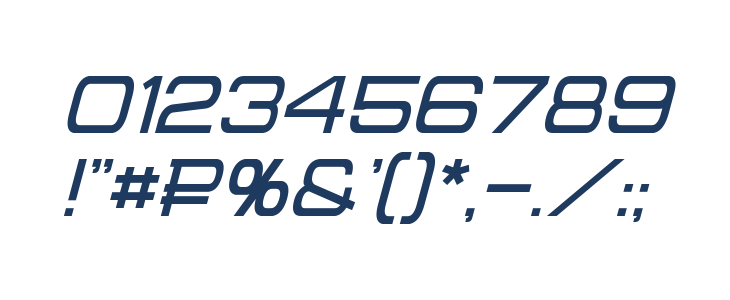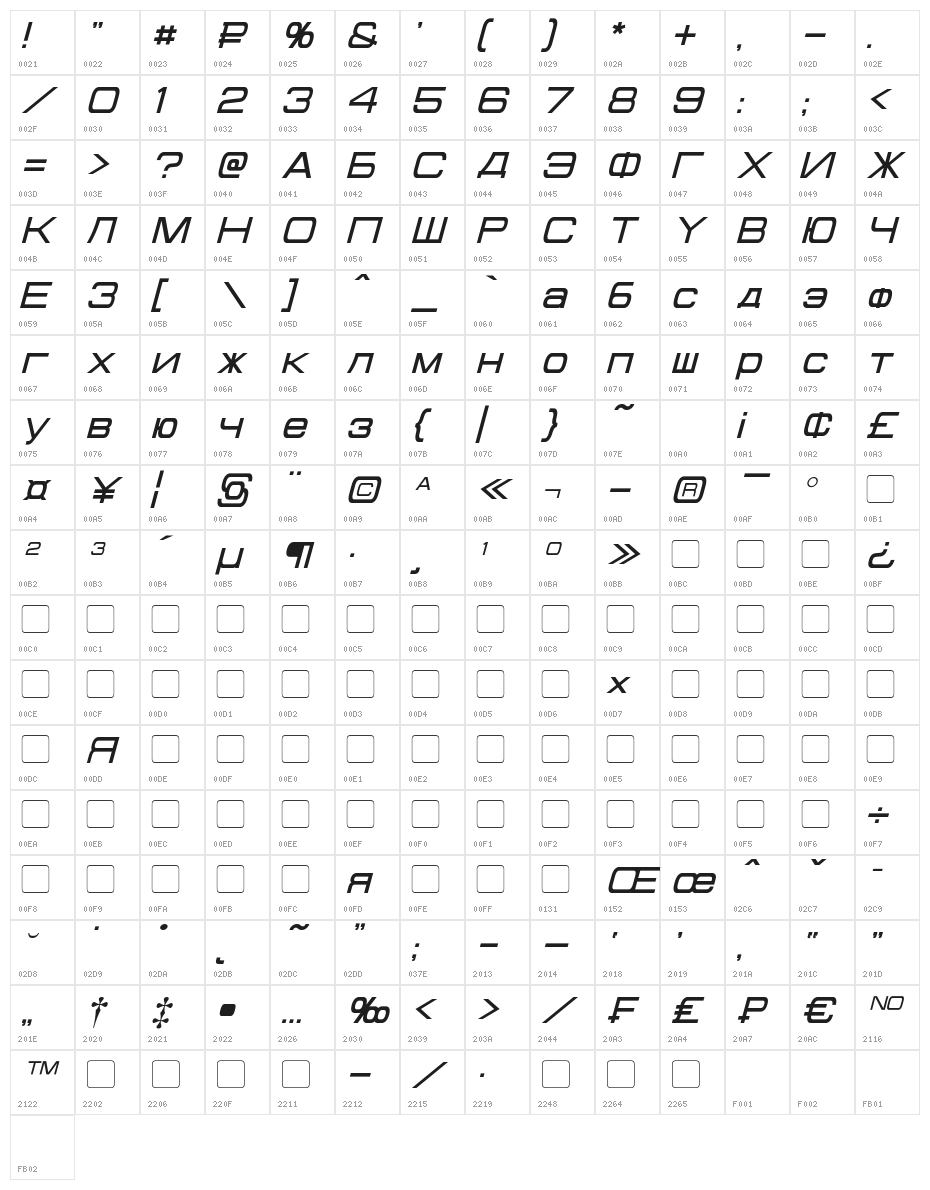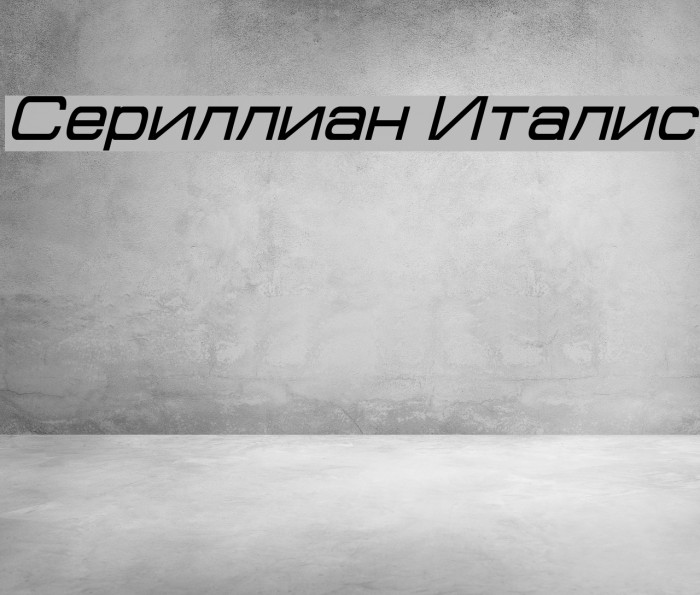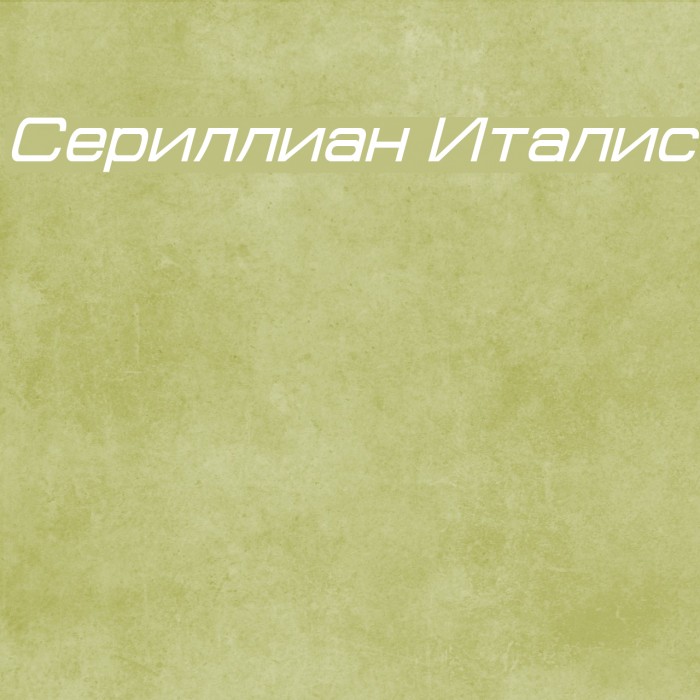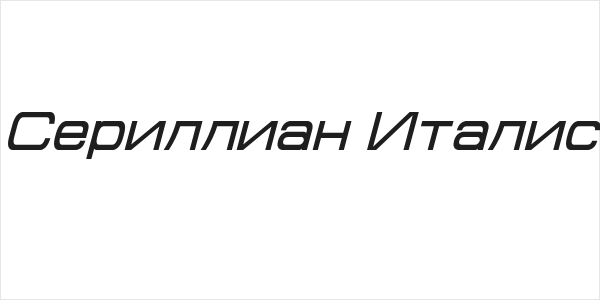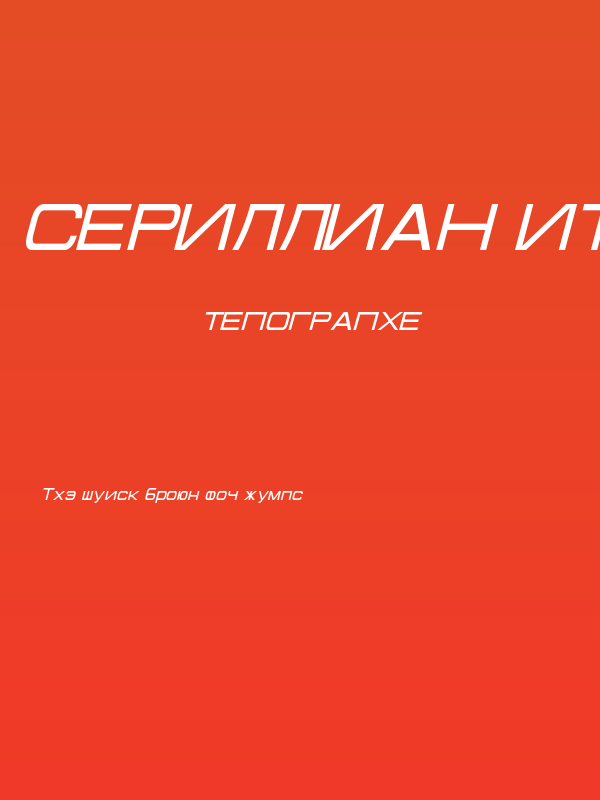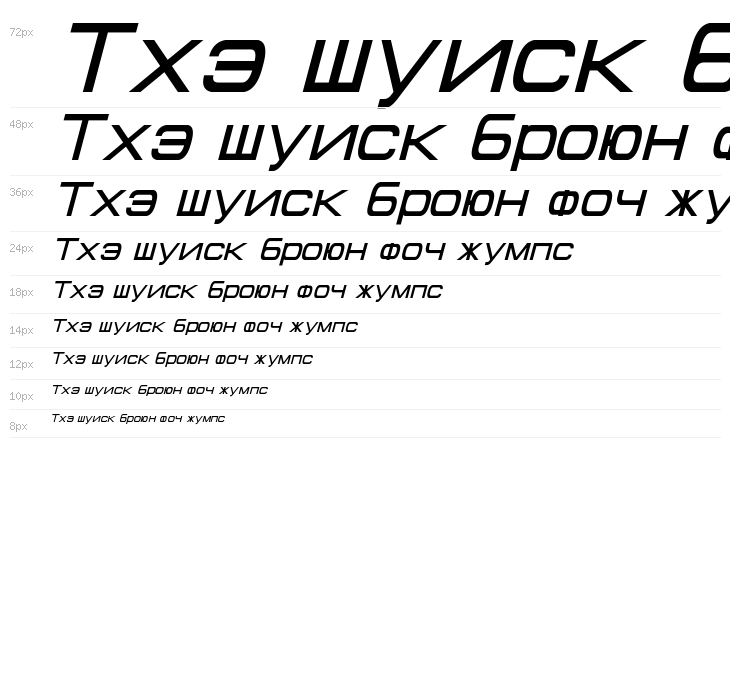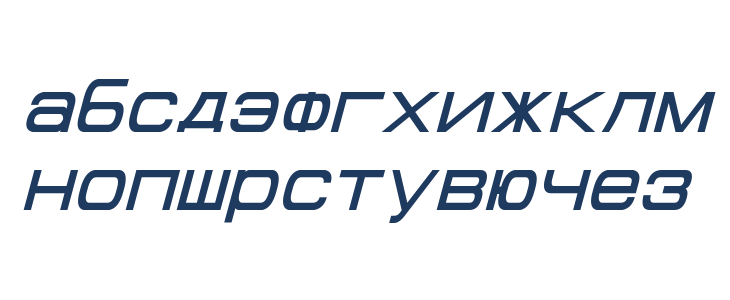
Cyrillian Italic Font
Cyrillian Italic Description
This font features a sleek, italicized design with a modern and dynamic appearance. The characters are slightly slanted, giving a sense of motion and elegance. The strokes are uniform with medium contrast, providing a clean and professional look. The Cyrillic alphabet is prominently featured, making it suitable for languages using this script. The numbers and special characters maintain the same italic style, ensuring consistency across all text elements. The overall design is contemporary, making it ideal for projects that require a stylish yet readable typeface.
| Use Case | Headlines, Branding, Editorial |
| Proposed Projects | Ideal for branding, advertising, and editorial design projects requiring a modern and dynamic look. |